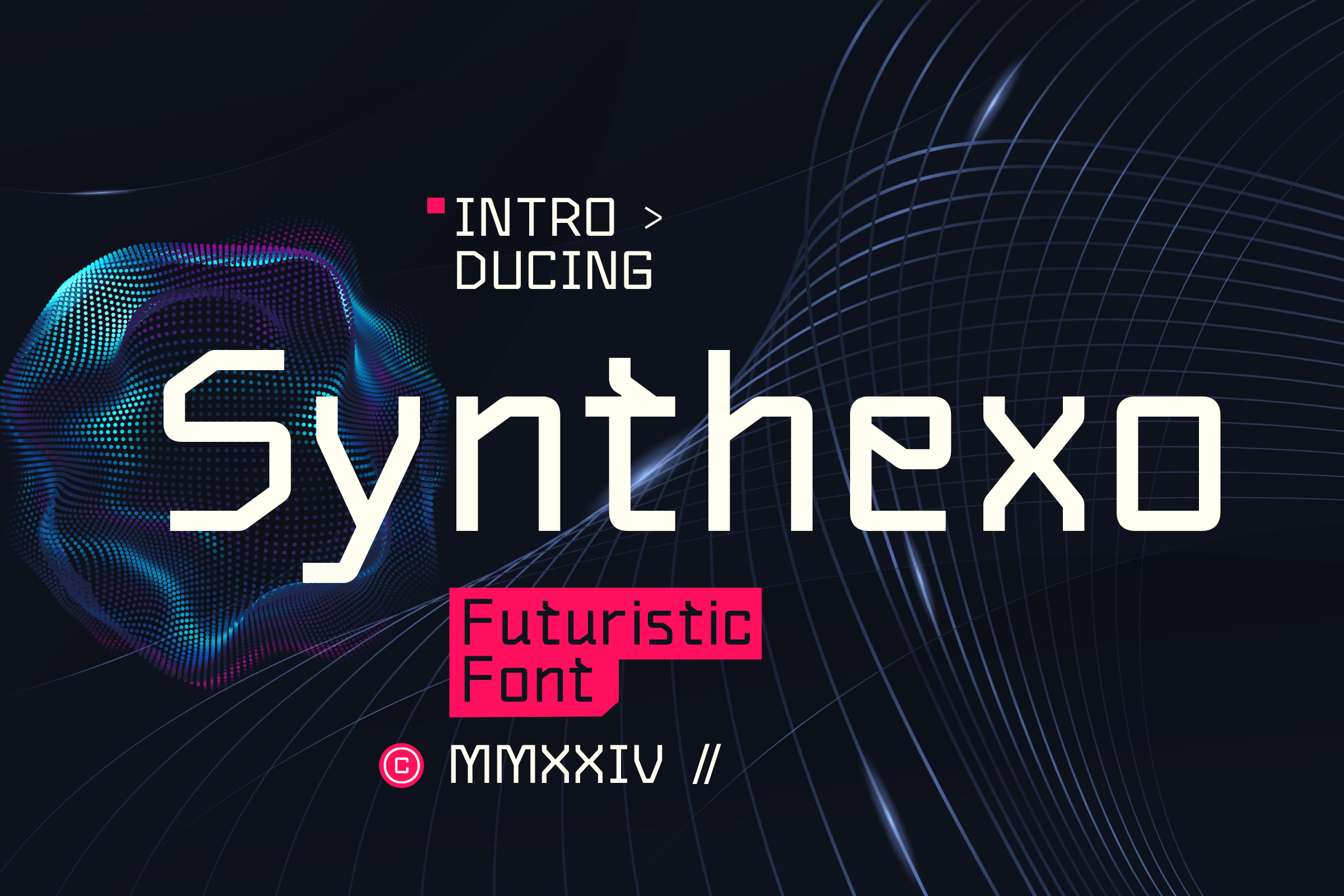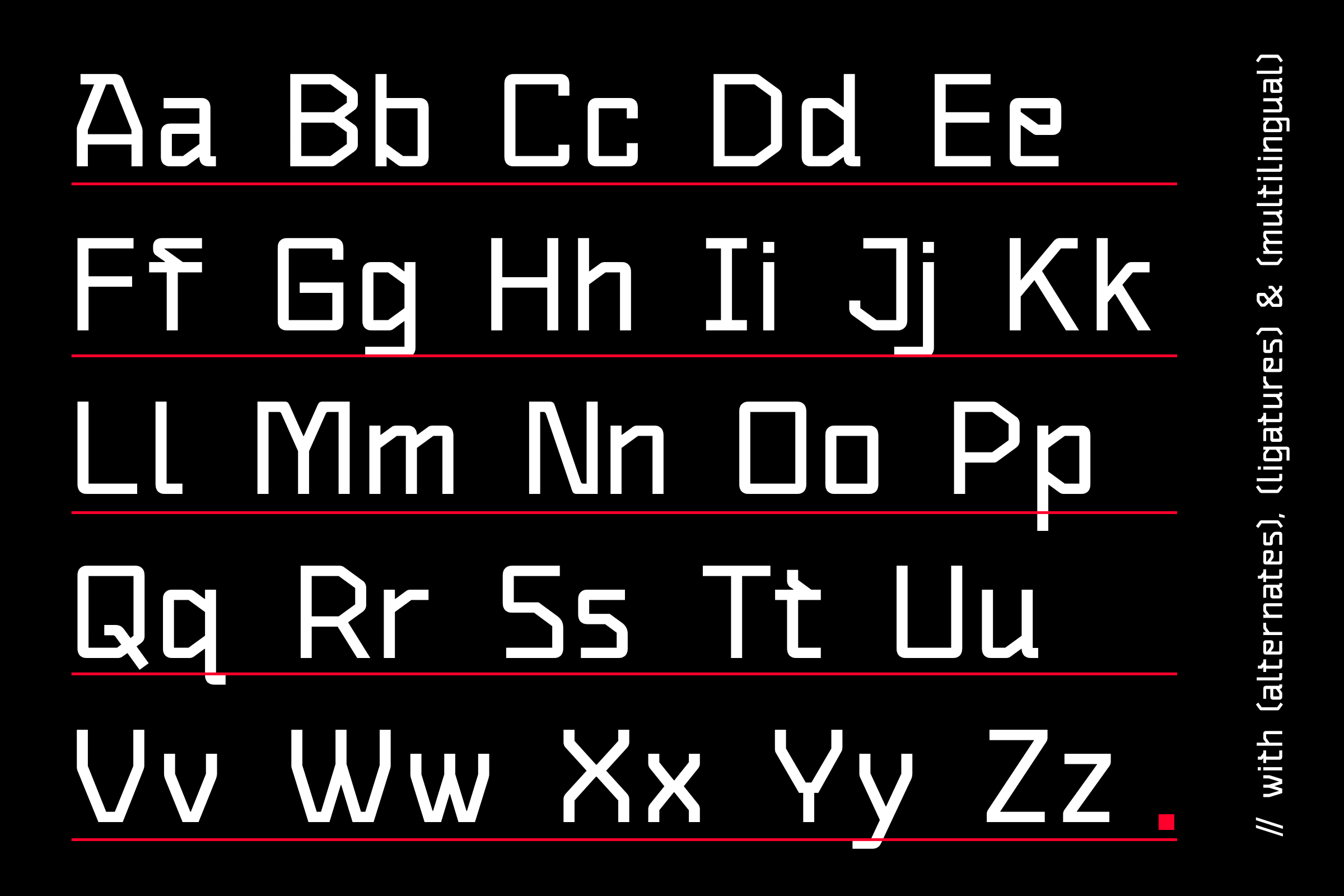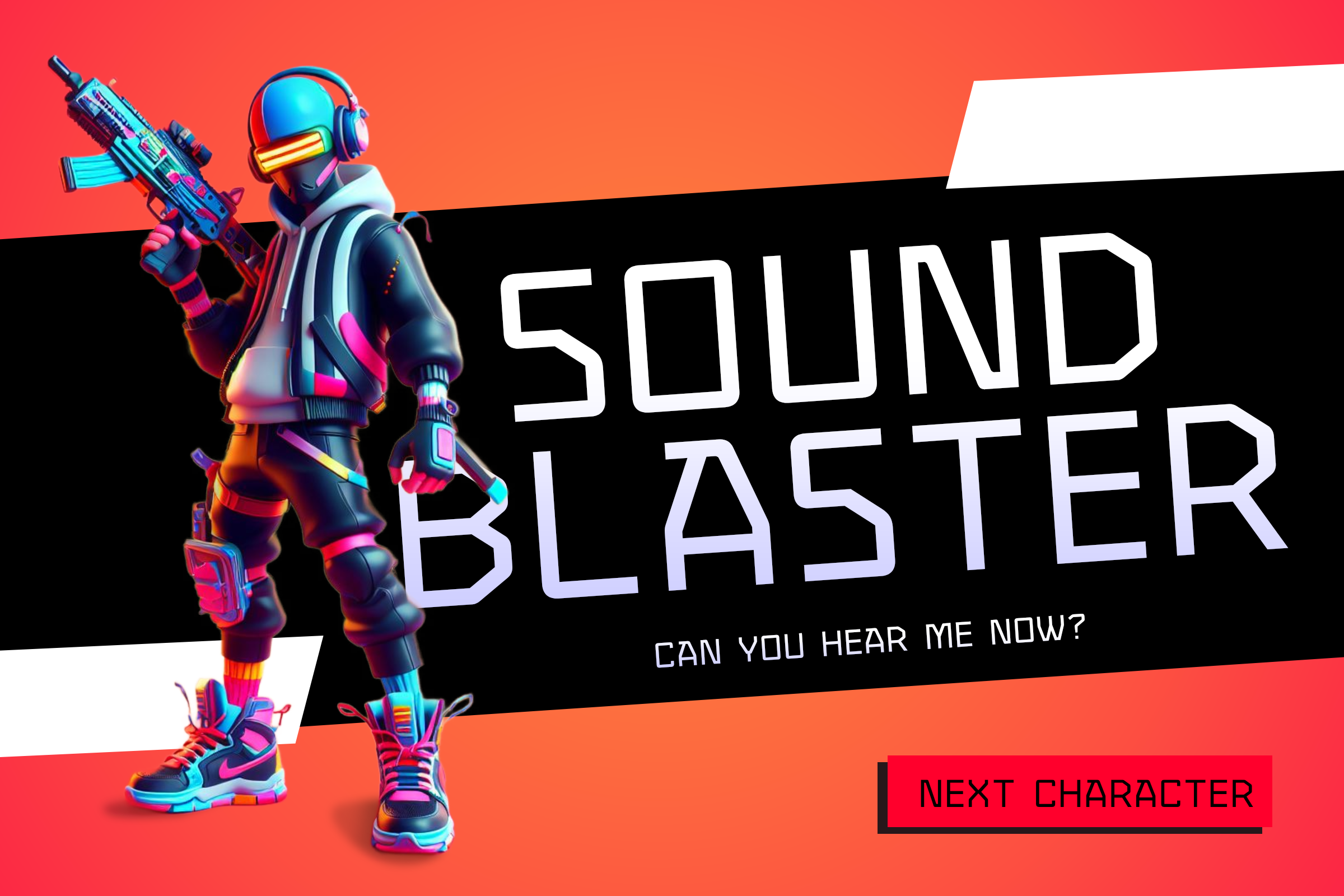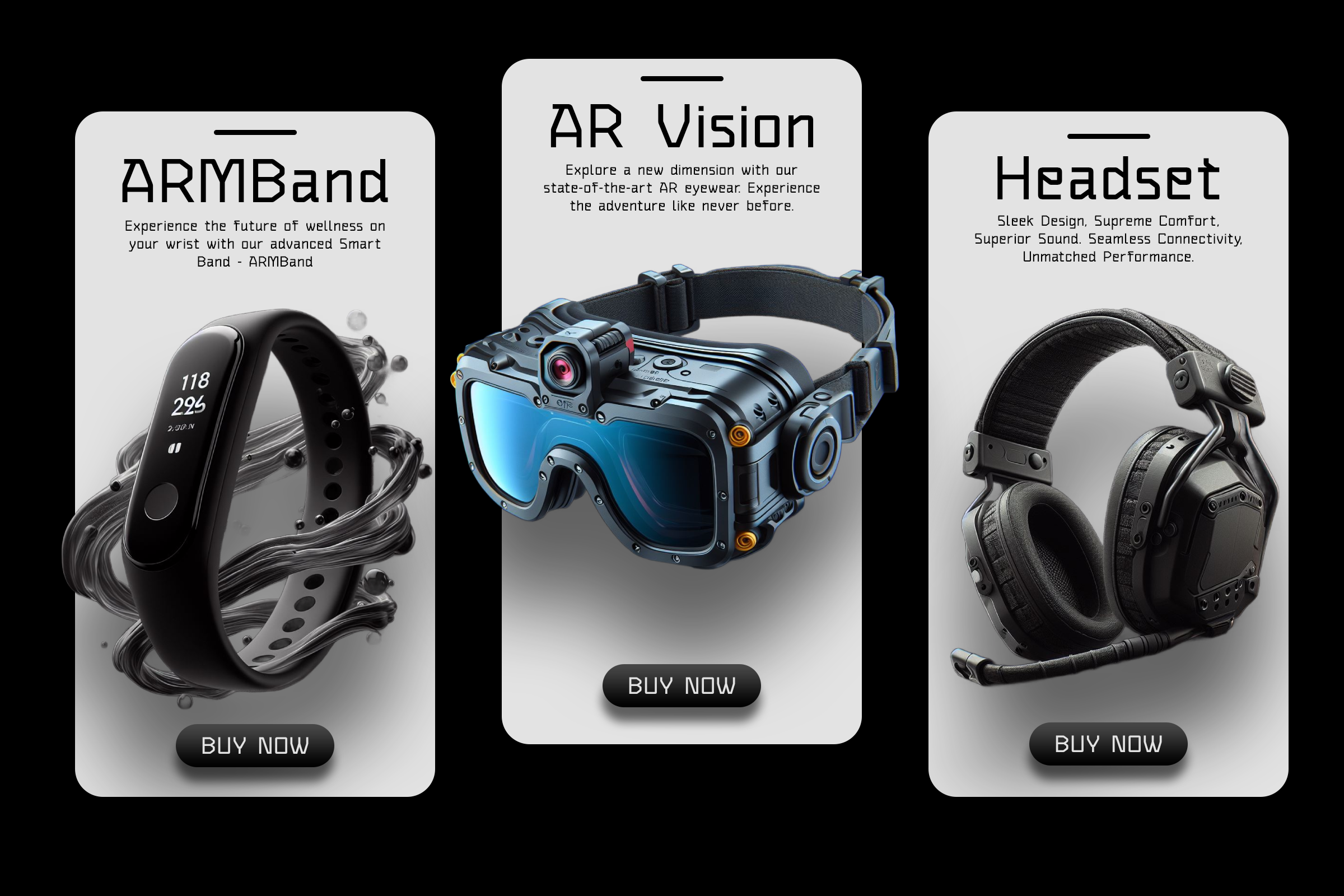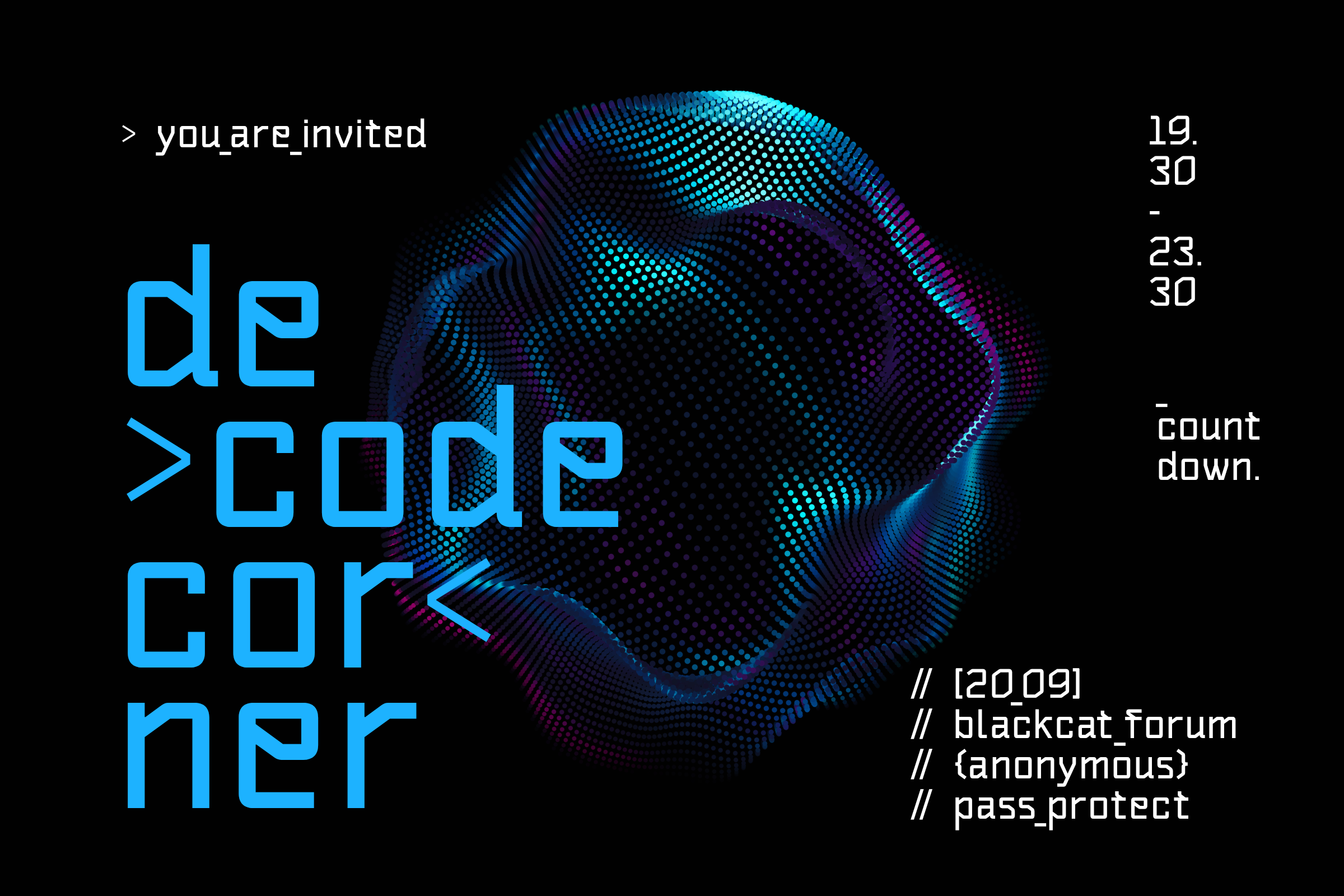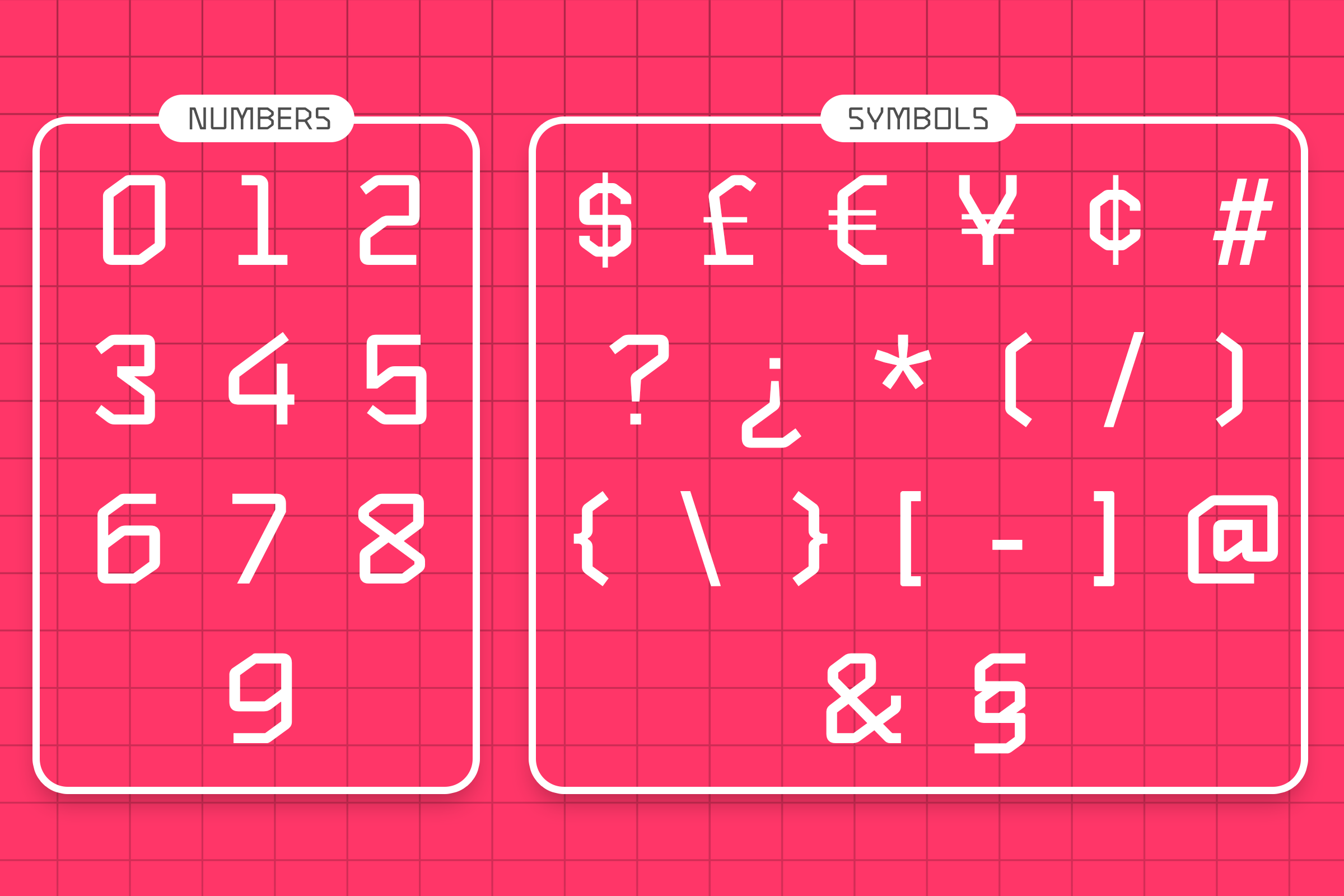
Synthexo - Futuristic Tech Typeface
Synthexo is an angular style sans serif typeface with futuristic technology inspirations.
This typeface is perfect for designs themed around future tech, crypto & gaming.